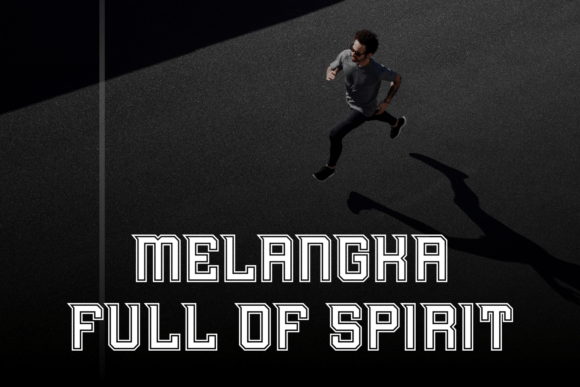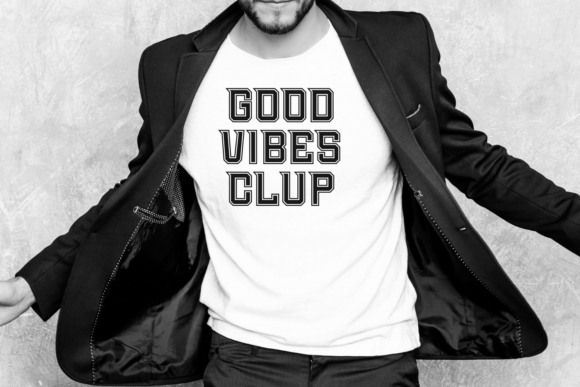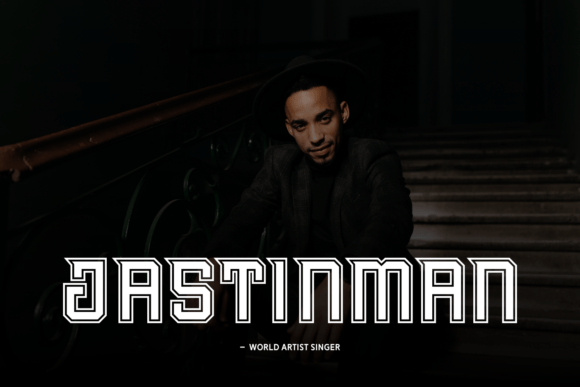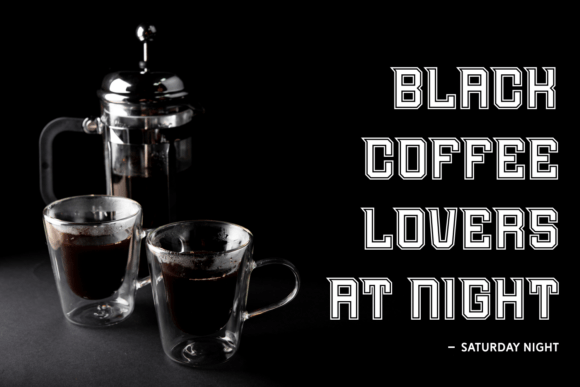
Introduction to Quick Steps Font
Introducing Quick Steps Display, a striking and versatile typeface hailed for its slab serif uniqueness.
Perfect for book covers, branding initiatives and craft projects, this font makes a meaningful statement like no other Imagine how it would shine on Fatherโs Day cards or Holiday greetings, adding a personalized touch that speaks volumes.
Quick Steps Font offers exceptional quality and versatility, making it a valuable addition to your design toolkit. Whether you’re creating for personal projects or commercial use, Quick Steps Font delivers professional results.